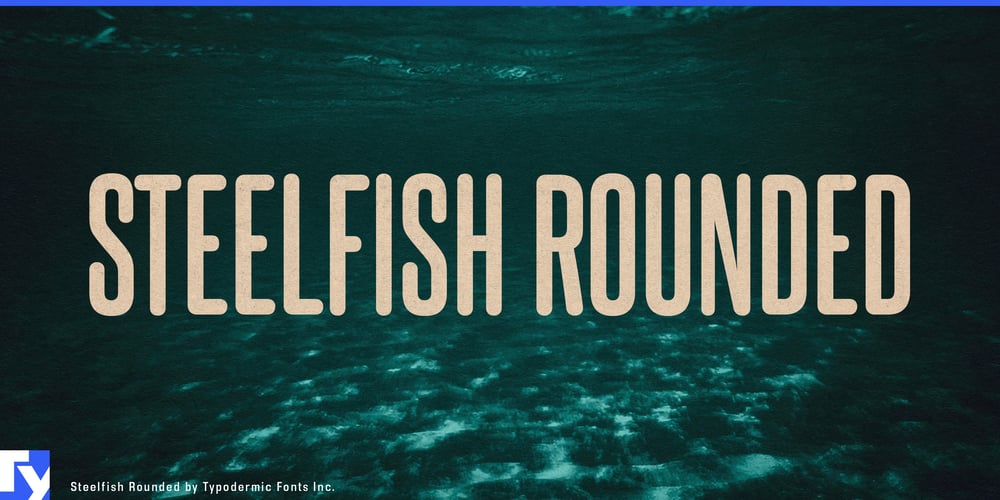
Steelfish Rounded Font Family was designed by Ray Larabie and published by Typodermic. Steelfish Rounded contains 5 styles and family package options. Dive into the smooth waters of typography with Steelfish Rounded, a typeface that glides effortlessly between the currents of classic design and modern aesthetics. This is a typographic streamliner, cutting through visual noise with the grace of a dolphin and the precision of a shark.Steelfish Rounded takes the robust DNA of its predecessor and smooths out the edges, creating a typeface that’s both powerful and approachable. It’s like the Steelfish family decided to take a spa day, emerging with a polished look that’s ready for any design challenge. Those rounded stroke ends aren’t just for show—they’re the secret to this typeface’s versatility, allowing it to navigate seamlessly from bold headlines to subtle body text. But don’t mistake its smooth exterior for weakness. Steelfish Rounded is a master of disguise, avoiding trendy embellishments and antique frills that would weigh it down. Instead, it relies on its clean lines and perfectly balanced proportions to make a statement. It’s the typographic equivalent of a stealth submarine—sleek, efficient, and packing a serious punch when you least expect it.This typeface doesn’t just swim in the design pool—it owns it. With its compact letterforms, Steelfish Rounded conserves space without sacrificing legibility, making it the perfect choice for designers who need to say more with less. It’s equally at home in a minimalist logo or a complex editorial layout, adapting to its environment like a typographic chameleon. And let’s talk about its linguistic agility. Steelfish Rounded speaks fluent design in an impressive array of languages, supporting most Latin-based European, Vietnamese, Greek, and Cyrillic-based writing systems. From the fjords of Norway to the streets of Hanoi, this typeface ensures your message stays afloat in a sea of global communication.Remember, Steelfish Rounded isn’t swimming alone. It’s part of a school of typefaces, each with its own unique flair. There’s the original Steelfish, the tough-as-nails Steelfish Hammer, the industrious Steelfish Steeled, and the stripped-down Steelfish Unleaded. Together, they form a typographic ecosystem ready to tackle any design challenge.So, when your project needs a typeface that combines the strength of steel with the fluidity of water, cast your line for Steelfish Rounded. It’s a typographic lifesaver, ready to keep your designs afloat in the ever-changing seas of visual communication.